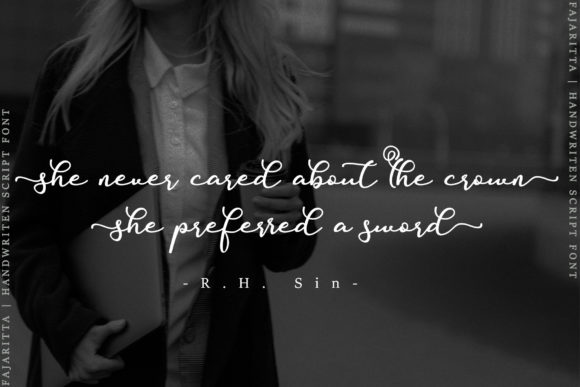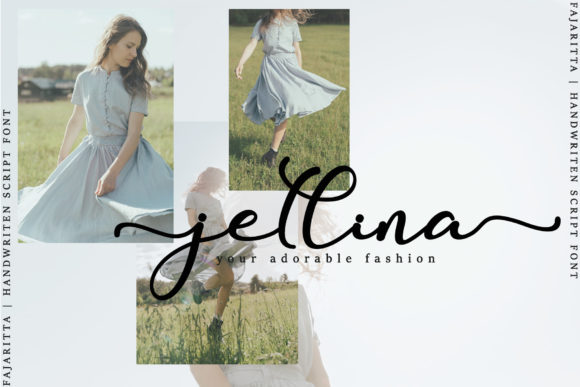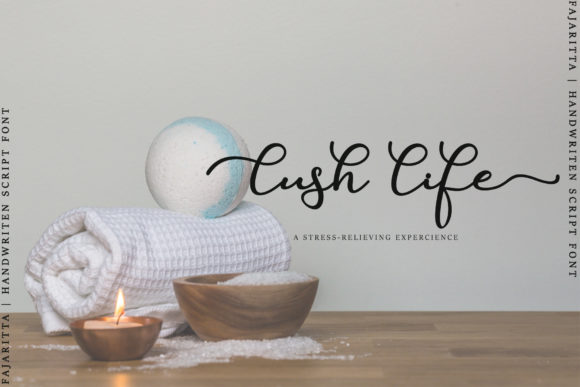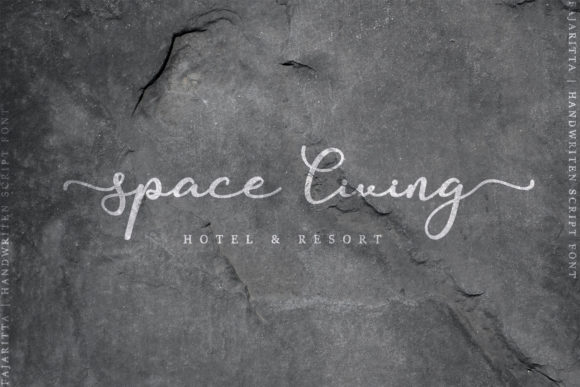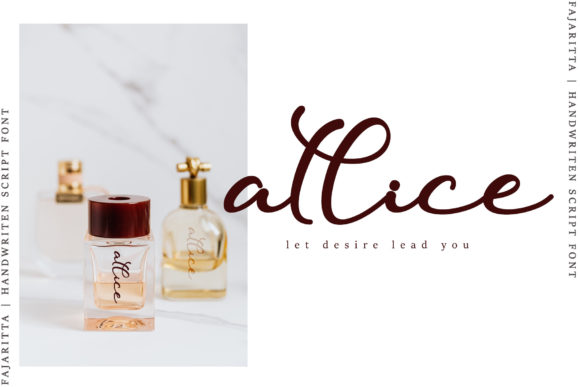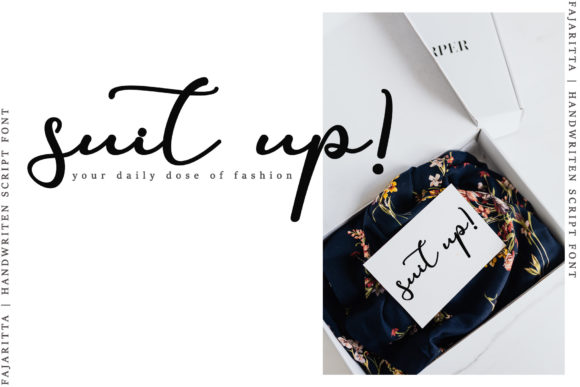
Fajaritta Font: Elevate Your Designs with Elegance and Sophistication
In the world of typography, a font can make or break the visual appeal of a design. For designers and crafters seeking to add a touch of elegance and sophistication to their work, Fajaritta Font is an exceptional choice. This delicate and elegant handwritten font has been gaining attention for its distinct and well-balanced letters, making it a masterpiece for various design applications.
What Makes Fajaritta Font Stand Out?
Fajaritta Font boasts a unique charm that sets it apart from other fonts. Its delicate strokes and elegant letterforms evoke a sense of refinement and luxury, perfect for designs that require a high level of sophistication. The font’s well-balanced letters ensure that it remains legible and visually appealing, even at smaller sizes.
Fajaritta Font is incredibly versatile and can be used for a wide range of design projects, including:
- Branding: Add a touch of elegance to your brand’s identity with Fajaritta Font. Its sophisticated look makes it perfect for logos, business cards, and other marketing materials.
- Quotes and Inspirational Messages: Fajaritta Font is ideal for showcasing quotes and inspirational messages. Its delicate and elegant appearance adds emphasis to the words, making them more impactful.
- Greetings Cards: Create beautiful and heartfelt greetings cards for special occasions, such as birthdays, weddings, and holidays, with Fajaritta Font.
- Wedding Stationery: Make your wedding stationery, including invitations, menus, and place cards, truly unforgettable with Fajaritta Font’s elegant and refined look.
Why Choose Fajaritta Font?
With so many fonts available, why choose Fajaritta Font? Here are a few compelling reasons:
- Unique and Distinctive: Fajaritta Font’s unique letterforms and delicate strokes make it stand out from more common fonts.
- Elegant and Sophisticated: The font’s elegant appearance adds a touch of sophistication to any design.
- Versatile: Fajaritta Font can be used for a wide range of design applications, from branding to wedding stationery.
- Legible: The font’s well-balanced letters ensure that it remains legible, even at smaller sizes.
Tips for Using Fajaritta Font Effectively
To get the most out of Fajaritta Font, consider the following tips:
- Pair with Complementary Fonts: Combine Fajaritta Font with complementary fonts to create visual interest and add depth to your design.
- Use for Headings and Titles: Fajaritta Font is perfect for headings and titles, where its elegant appearance can make a lasting impression.
- Experiment with Colors: Try pairing Fajaritta Font with different colors to create a unique and eye-catching design.
Fajaritta Font is a stunning and elegant handwritten font that can elevate your designs to new heights. Its unique and distinctive letterforms, combined with its well-balanced and legible appearance, make it perfect for a wide range of design applications. Whether you’re a designer or crafter, Fajaritta Font is an excellent choice for adding a touch of sophistication and elegance to your work.